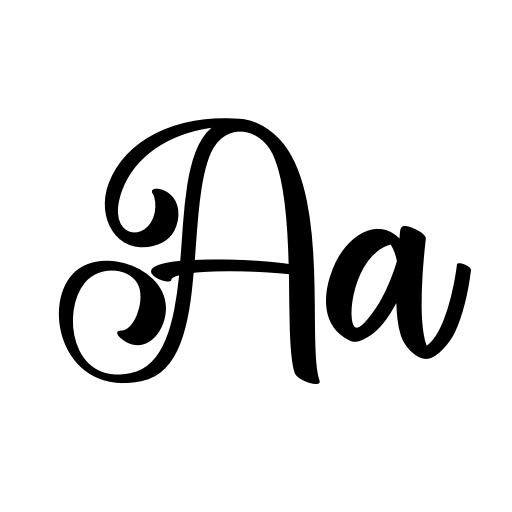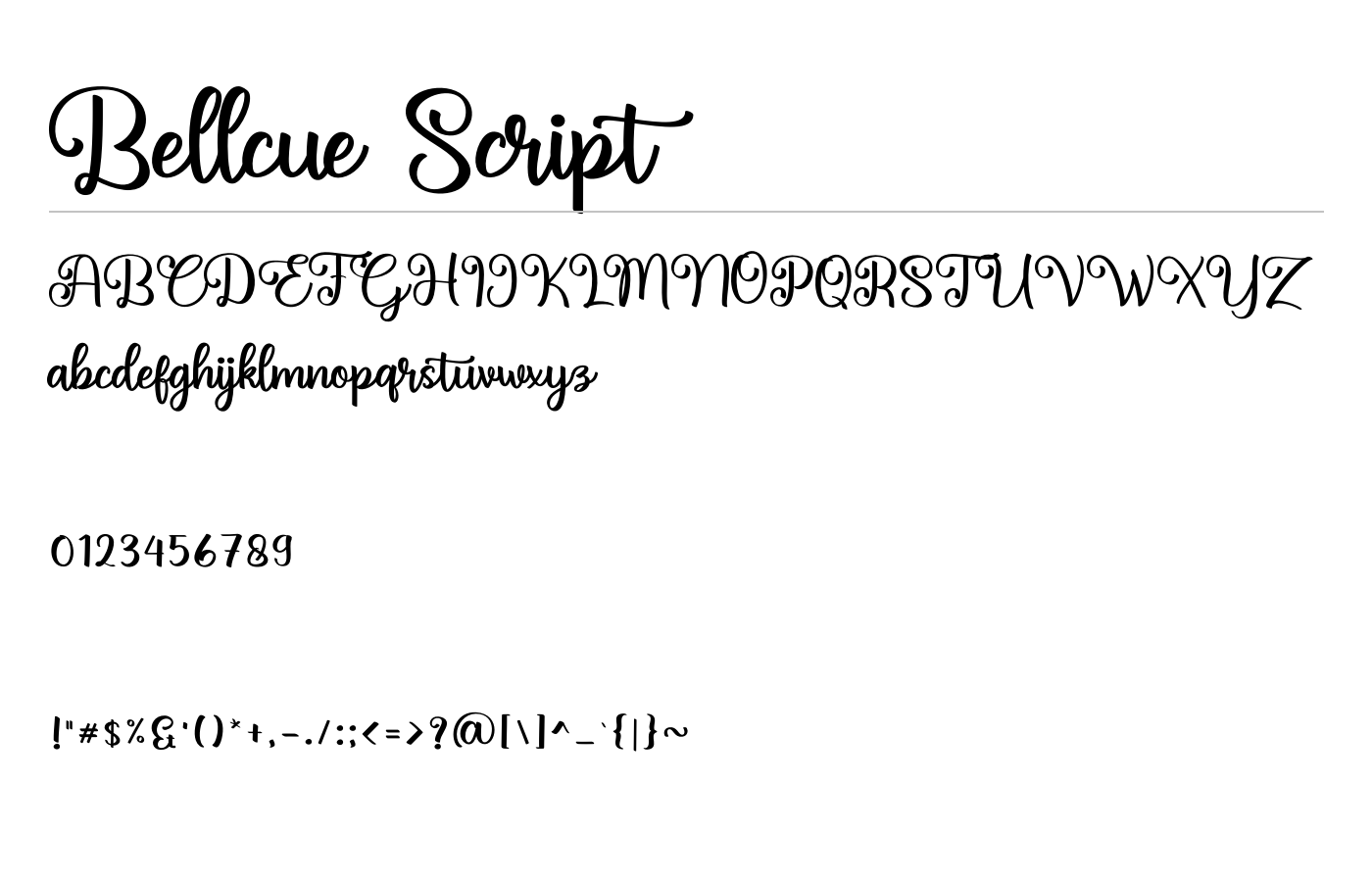
Bellcue Script is a playful and elegant script font with smooth, rounded strokes and a friendly, hand-drawn feel. Its uppercase letters feature whimsical curls and loops, while the lowercase is more casual and flowing, making it ideal for creative branding, invitations, and stylish headlines. This font works wonderfully in contexts where a warm, approachable yet chic personality is desired.
Bellcue Script Font
About Bellcue Script Font
| Font family | Bellcue Script Font |
| Designer | dianhaniff |